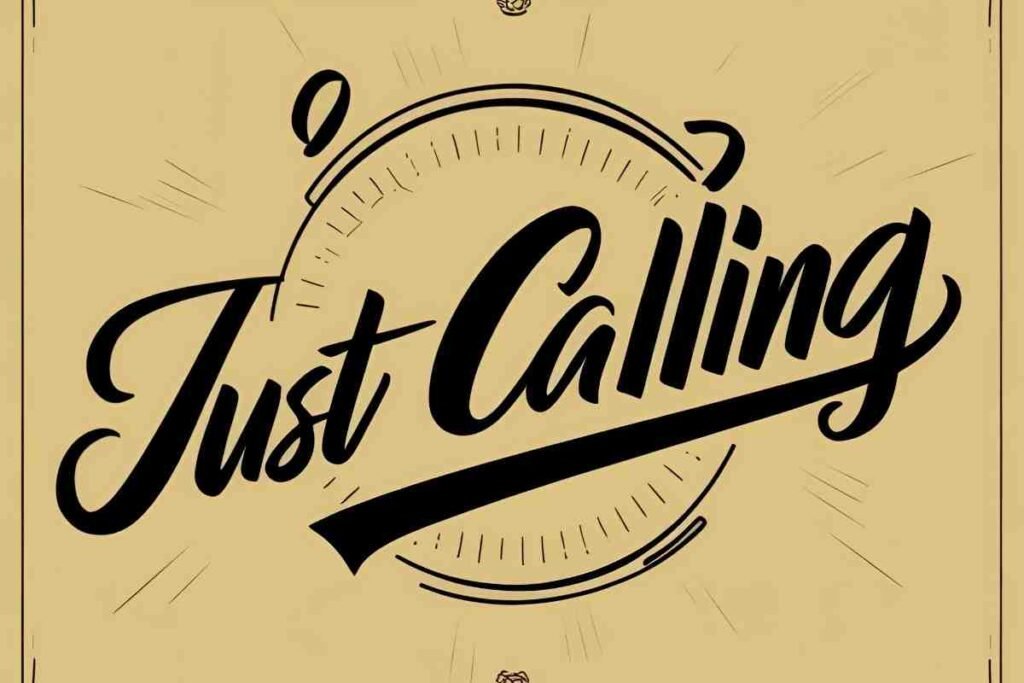
Typography plays a crucial role in design, and finding the perfect font can make all the difference. If you’re looking for a stylish script font, the Just Calling font free version is an excellent choice.
What is Just Calling Font Free?
Just Calling is a stunning brush script font with an elegant, handcrafted feel. Its fluid strokes and natural brush texture make it ideal for logo design, branding, social media graphics, invitations, product packaging, and other creative projects. As a display font, Just Calling excels in creating bold, attention-grabbing typography that enhances visual appeal.
Whether you’re designing a modern logo, stylish wedding invitations, or engaging social media posts, Just Calling adds a sophisticated and artistic touch to any design.
Key Features of Just Calling Font Free
A stylish brush script font with elegant strokes, versatile formats, broad compatibility, and free personal use.
Elegant Handwritten Style
The Just Calling font features a smooth, flowing brush script style that beautifully mimics natural handwriting. Its organic strokes and artistic curves make it a favorite among calligraphy and typography enthusiasts.
This font is perfect for branding, invitations, greeting cards, and product packaging, adding a touch of sophistication and elegance to any design.
Versatile Usage
The Just Calling font free version is an excellent choice for both digital and print designs, offering a stylish and professional touch to any project. Whether you’re crafting engaging social media graphics for platforms like Instagram, Pinterest, and YouTube, designing elegant wedding invitations.
Greeting cards, or creating distinctive branding and logo designs, this font brings a sense of sophistication and artistry. Additionally, it is perfect for typography and lettering projects, adding a natural, handcrafted feel to your work.
With its smooth brush strokes and aesthetic appeal, Just Calling Font Free enhances the visual impact of any design, making it a go-to choice for creative professionals and hobbyists alike.
With its handcrafted elegance, flexible formats, and broad compatibility, Just Calling is a must-have font for anyone looking to add a modern yet artistic script typeface to their collection.